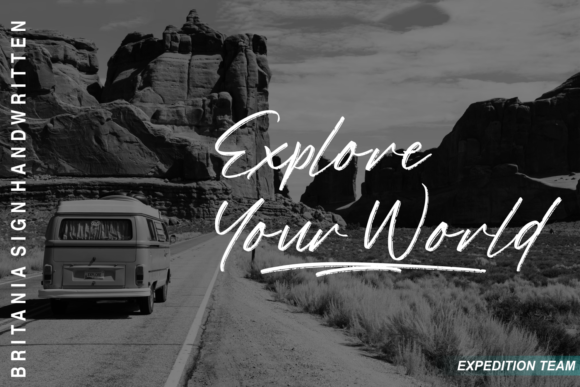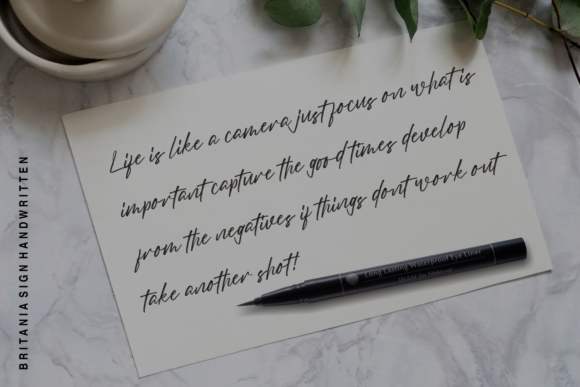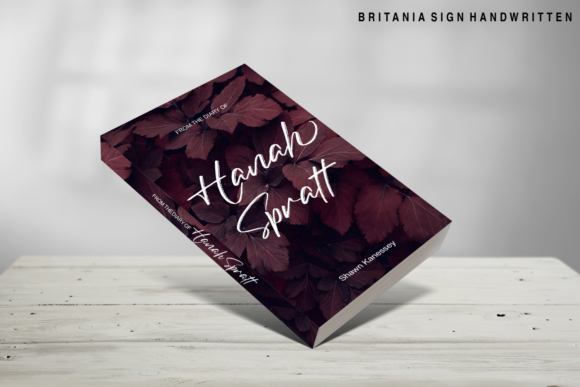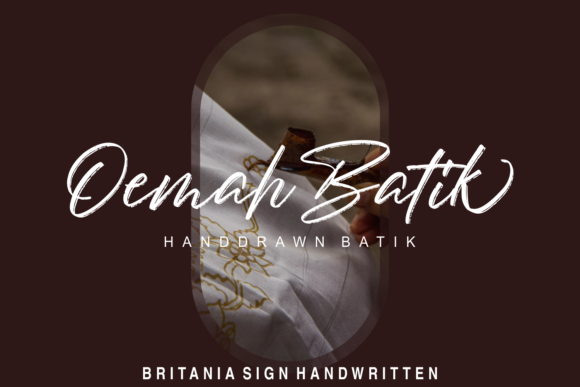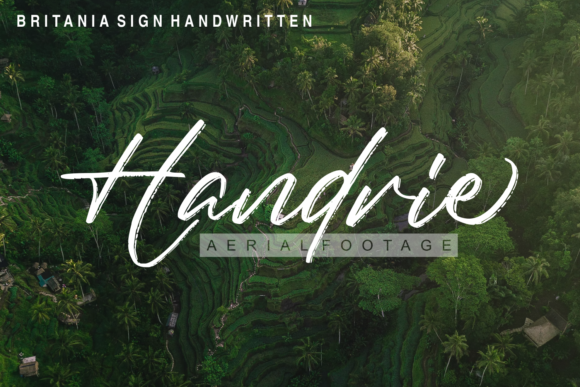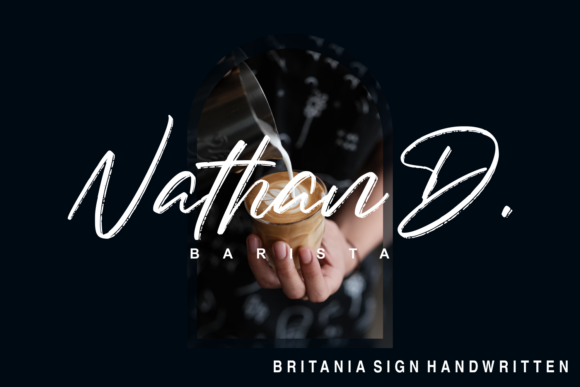
Discover the Elegance of Britania Sign Font
Are you a designer or crafter looking for a font that exudes elegance and sophistication? Look no further than the Britania Sign Font. This stunning script font is sure to capture your heart with its distinct and graceful style, making it perfect for creating gorgeous designs that stand out from the crowd.
What Makes Britania Sign Font So Special?
Britania Sign Font is a one-of-a-kind script font that boasts a unique and ravishing style. Its elegant strokes and beautiful swashes make it an ideal choice for designers and crafters who want to add a touch of sophistication to their designs. Whether you’re working on a branding project, creating wedding invitations, or designing social media graphics, Britania Sign Font is sure to impress.
One of the standout features of Britania Sign Font is its PUA (Private Use Area) encoding. This means that you can access all glyphs and swashes with ease, giving you complete creative control over your designs. With PUA encoding, you can effortlessly navigate through the font’s extensive character set, including alternates, ligatures, and swashes, to create stunning designs that showcase your creativity.
Britania Sign Font offers endless design possibilities, making it a versatile addition to any designer’s or crafter’s toolkit. Here are just a few ideas to get you started:
- Create stunning wedding invitations, save-the-date cards, and other wedding stationery
- Design elegant branding materials, including logos, business cards, and letterheads
- Develop eye-catching social media graphics, including Facebook posts, Instagram stories, and Twitter headers
- Make beautiful journals, planners, and other digital or print products
Why Choose Britania Sign Font?
With so many fonts available, why choose Britania Sign Font? Here are just a few reasons why this font stands out from the rest:
- Unique Style: Britania Sign Font boasts a distinct and elegant style that sets it apart from other script fonts
- Ease of Use: With PUA encoding, you can easily access all glyphs and swashes, making it simple to create stunning designs
- Versatility: Britania Sign Font is perfect for a wide range of design projects, from branding and advertising to crafting and journaling
- High-Quality Design: This font is designed with high-quality craftsmanship, ensuring that your designs look professional and polished
Tips for Using Britania Sign Font
To get the most out of Britania Sign Font, here are a few tips to keep in mind:
- Experiment with Swashes: Take advantage of the font’s beautiful swashes to add a touch of elegance to your designs
- Mix and Match: Combine Britania Sign Font with other fonts to create unique and eye-catching designs
- Pay Attention to Kerning: Make sure to adjust the kerning to ensure that your text looks balanced and visually appealing
In conclusion, Britania Sign Font is a stunning script font that is sure to capture your heart with its distinct and elegant style. With its PUA encoding, ease of use, and versatility, this font is perfect for designers and crafters who want to create gorgeous designs that stand out from the crowd. So why wait? Fall in love with Britania Sign Font and take your designs to the next level!